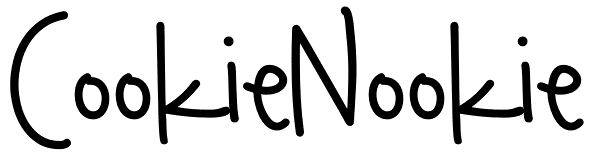
CookieNookie
CookieNookie is a silly but cute font, great for your scrapbook pages or where you want a unique handwritten look. Leave lots of leading...the ascenders and descenders are long!
CookieNookie Font